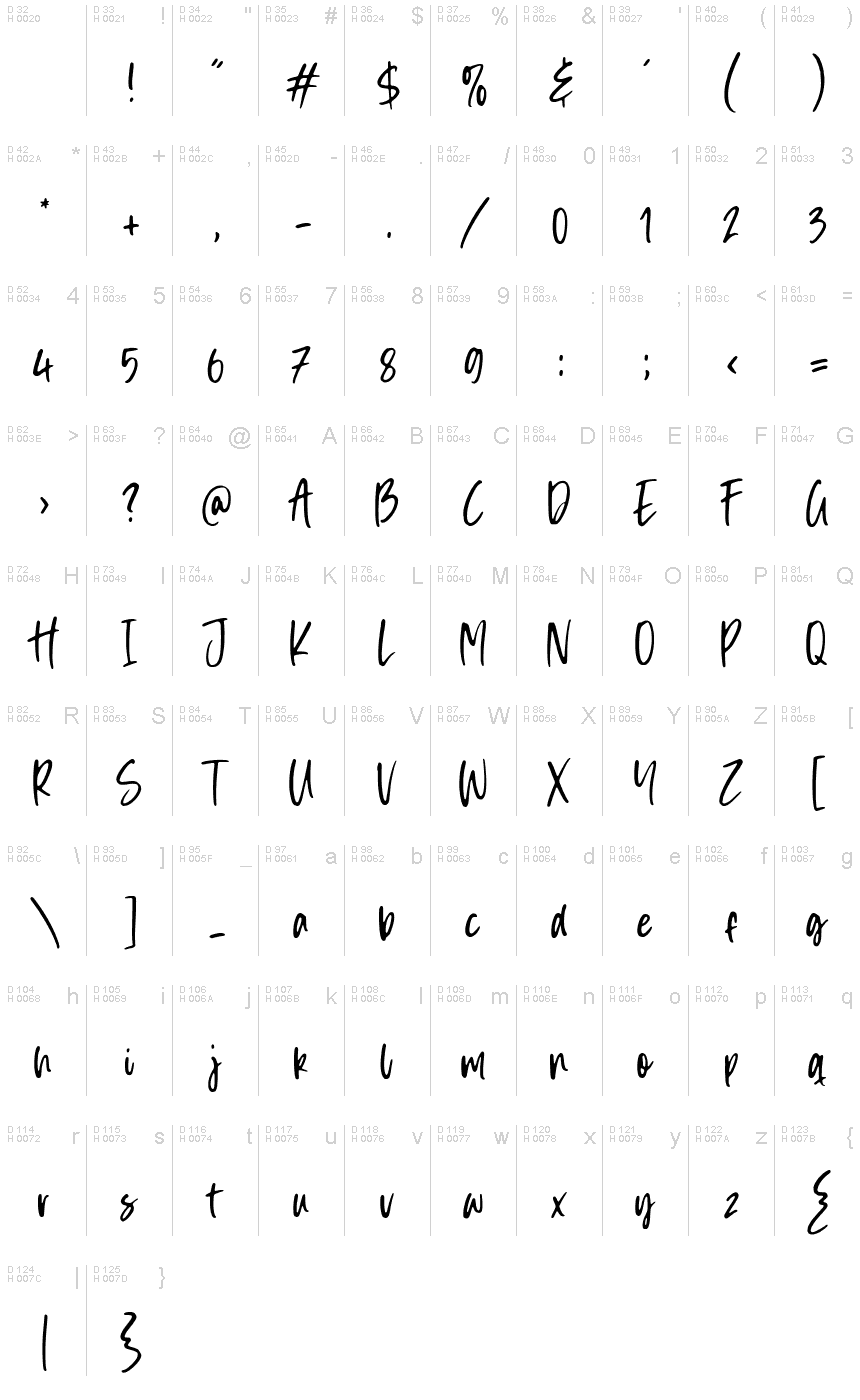
Simpleoak
Simpleoak, a captivating handwritten font by Balpirick Studio, exudes an air of effortless elegance. With its semi-light weight and semi-condensed width, this versatile typeface brings a touch of refinement to any project.
Whether you're designing wedding invitations, crafting logos for boutique brands, or creating artistic displays for galleries and museums, Simpleoak is the perfect choice. Its clean lines and graceful curves lend themselves seamlessly to a wide array of creative endeavors.
Elevate your designs with the timeless charm of Simpleoak – where sophistication meets simplicity.